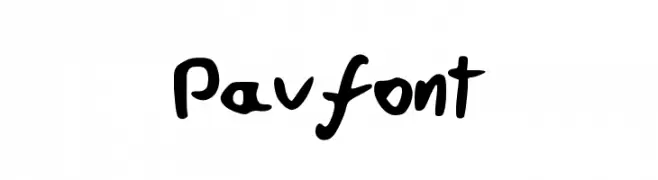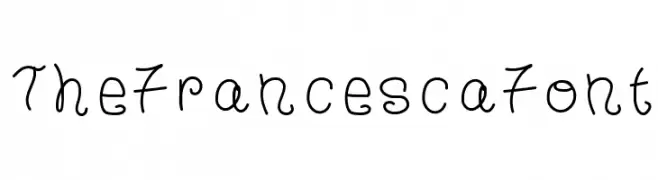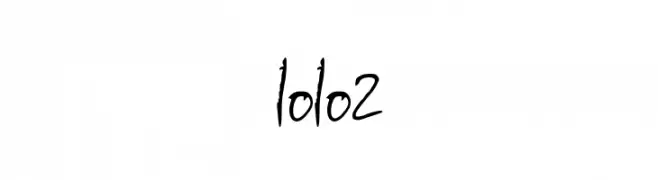
A dynamic, handwritten font with a casual and expressive style.
A playful, hand-drawn font with rounded, whimsical characters.
A playful, handwritten font with smooth, rounded strokes and a casual feel.
A playful, handwritten font with irregular strokes and a casual vibe.